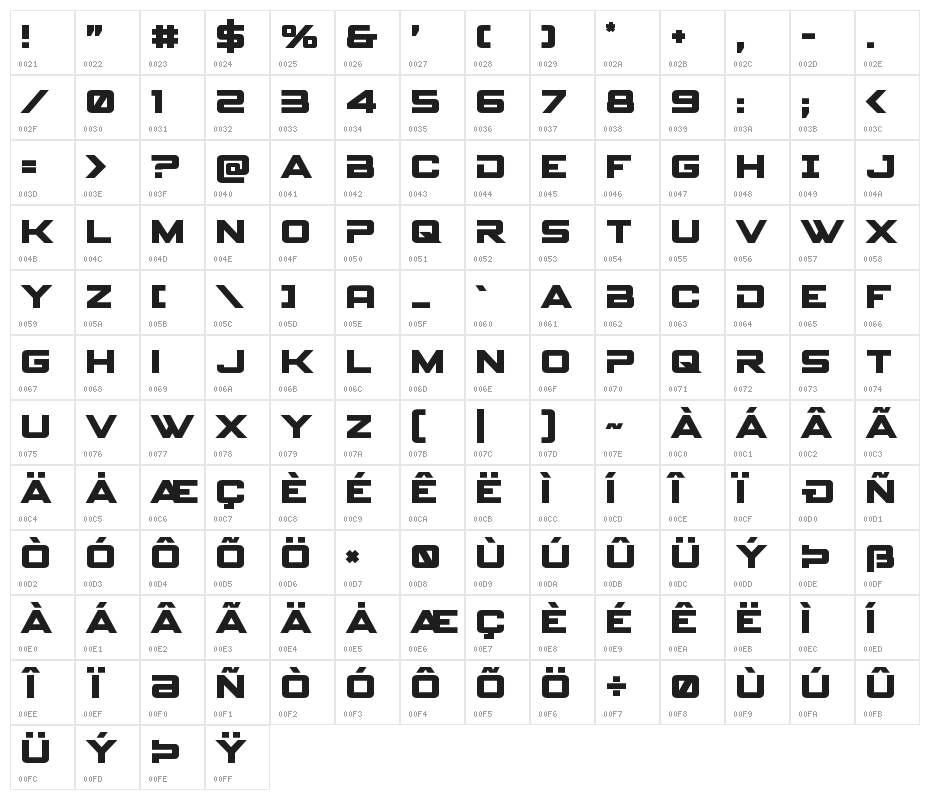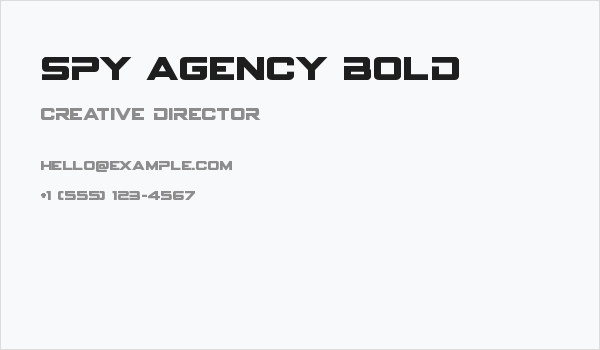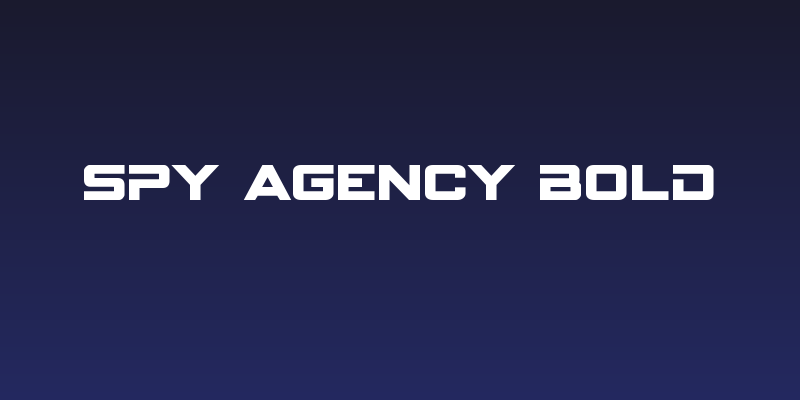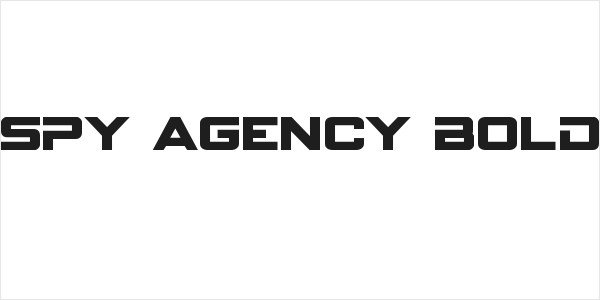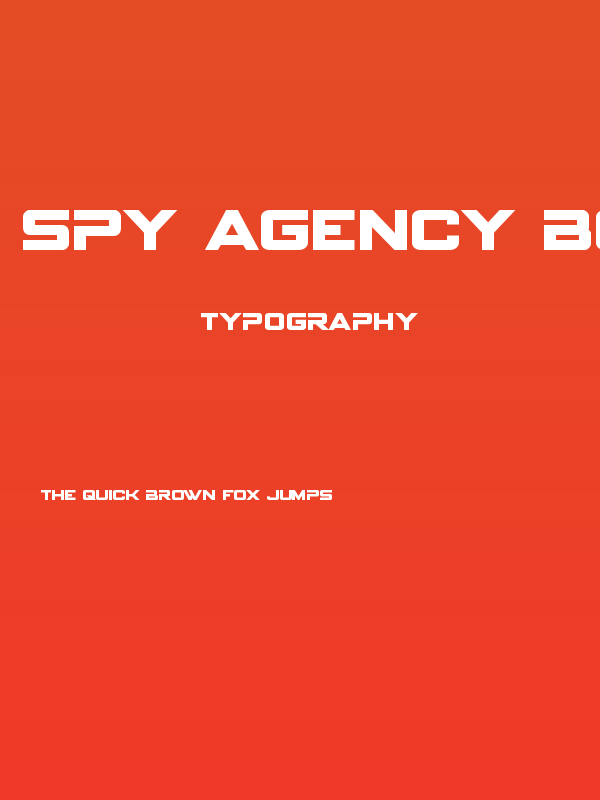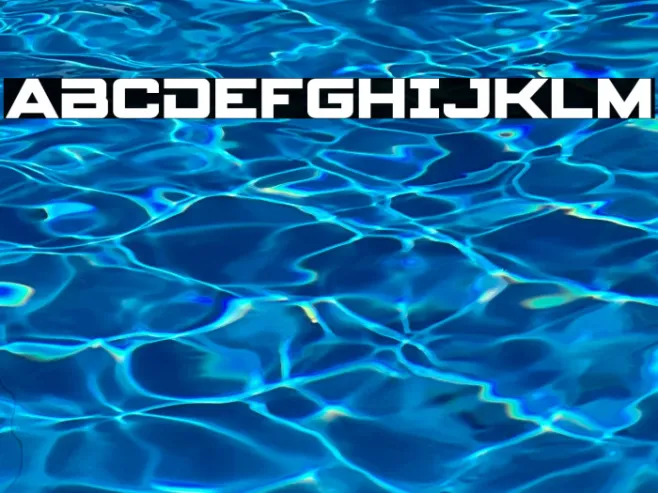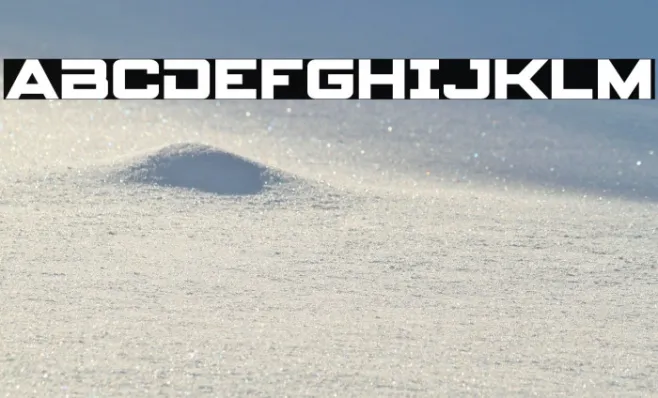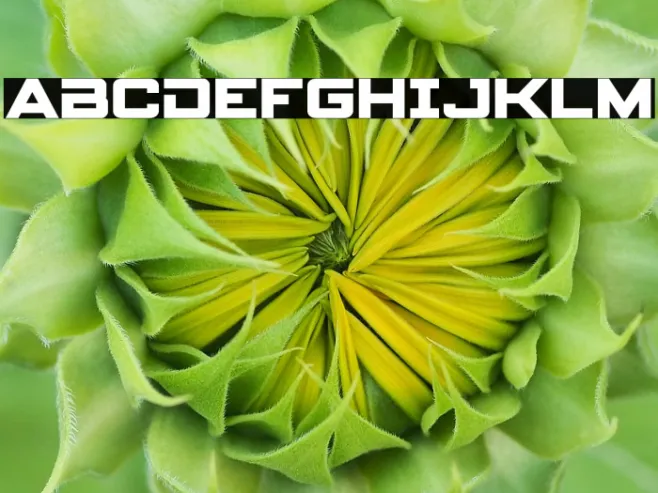
Spy Agency Bold Font
Spy Agency Bold Description
This font features a bold, geometric design with strong, angular lines and a futuristic aesthetic. The characters are uniformly wide, giving it a monospaced appearance, although it is not strictly monospaced. The uppercase letters are particularly striking, with a blocky and robust form that conveys strength and modernity. The numbers and special characters maintain this bold style, ensuring consistency across all glyphs. The overall look is reminiscent of digital or sci-fi themes, making it ideal for projects that require a modern and technological feel.
| Proposed Projects | Ideal for technology branding, sci-fi movie posters, video game titles, and digital interfaces. |